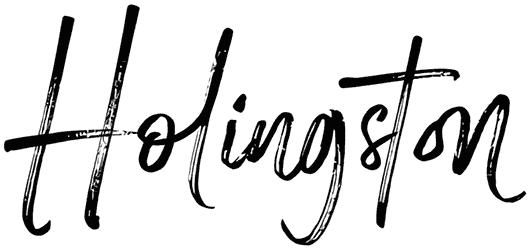
Holingston Font
Sometimes the audience anticipates you to add your personalized touch to graphic content such as business cards, birthday invitations, logos, packaging, or gift cards, and in this way, a magical script font like Holingston can be really practical. Due to its curved and obliqued characters, this brush font can give a sense of drama, professionalism, vivacity, or captivation to your work.
Designed by: HansCo